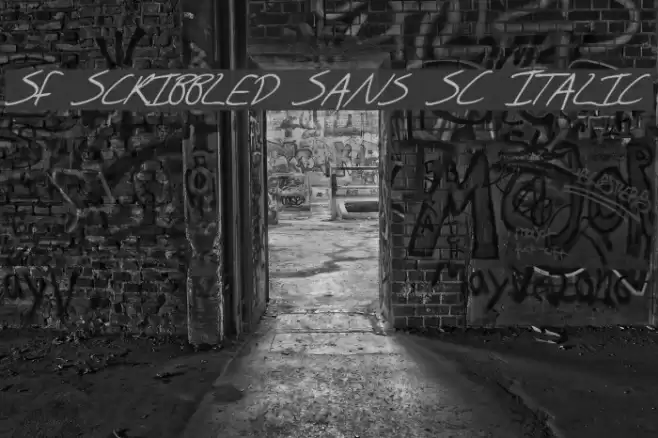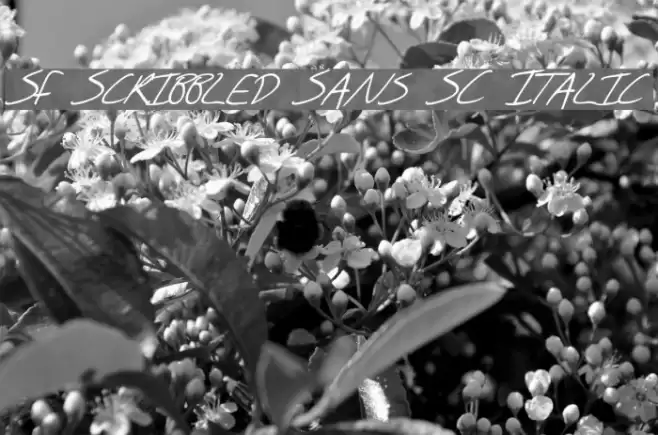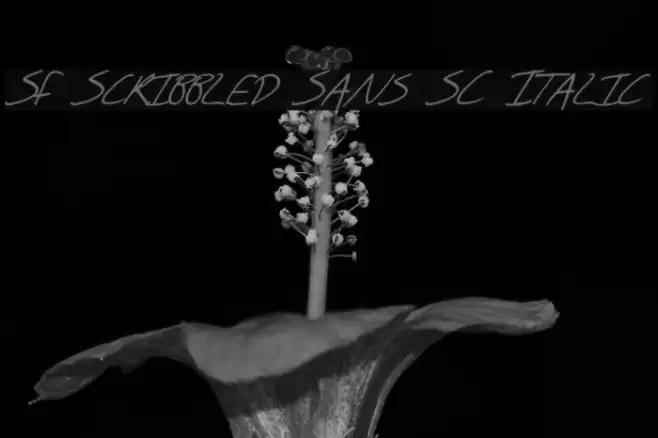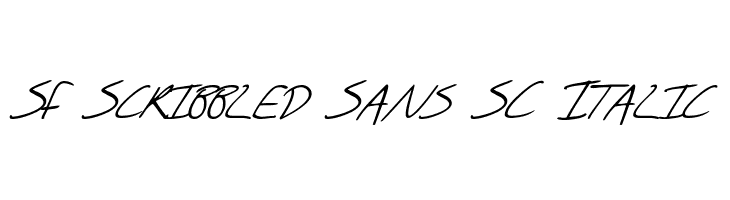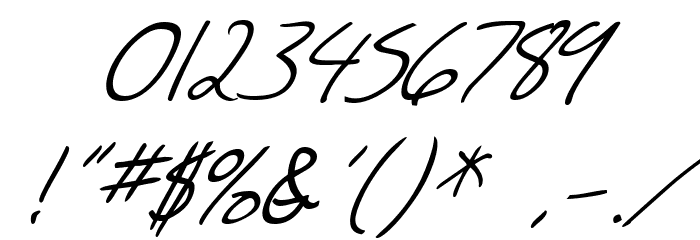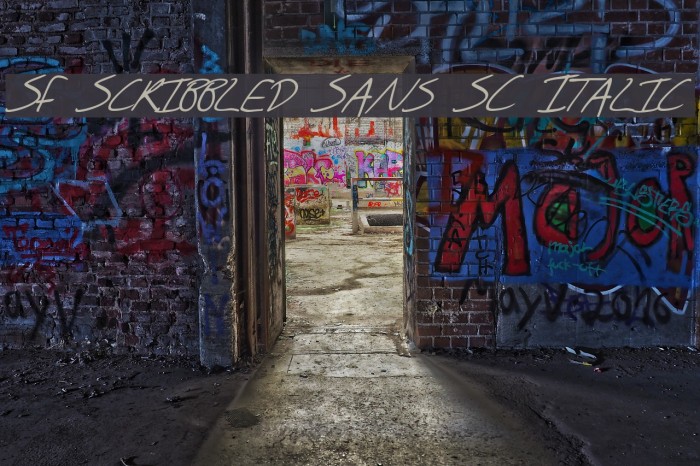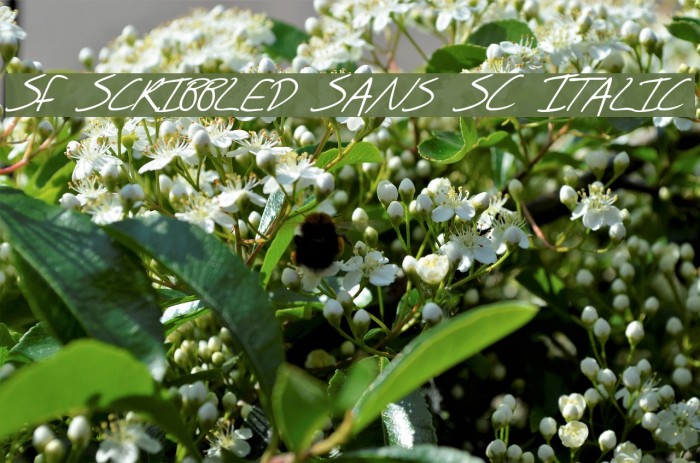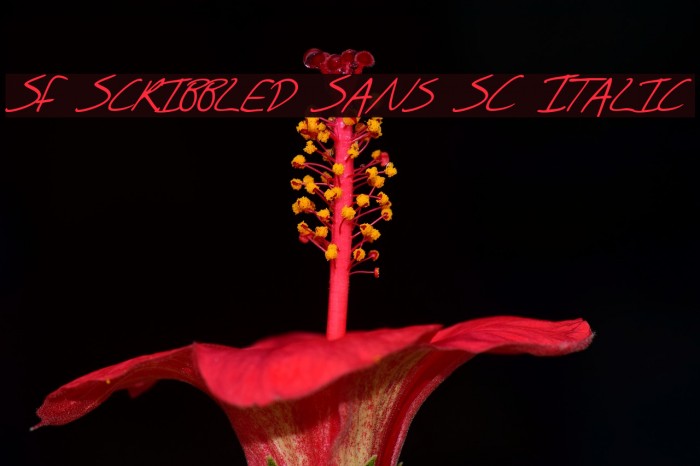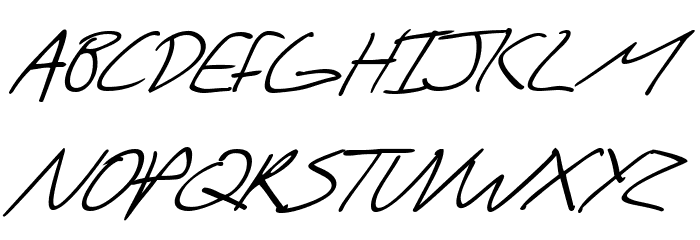
SF Scribbled Sans SC Italic Font
SF Scribbled Sans SC Italic Description
This font features a dynamic and energetic handwritten style, characterized by its fluid and cursive strokes. The letters are slightly slanted, giving it an italic appearance that enhances its casual and informal look. The strokes vary in thickness, adding a sense of movement and spontaneity. The uppercase and lowercase letters maintain a consistent style, with smooth curves and sharp angles that create a lively rhythm. The numerals and special characters are designed to match the overall aesthetic, ensuring a cohesive appearance across all text elements. This font's playful and expressive nature makes it ideal for projects that require a personal touch.
A dynamic handwritten font with fluid, italic strokes and varying thickness from Handwritten fonts.
- Proposed Projects: Ideal for personal invitations, greeting cards, creative posters, and branding materials that seek a casual and lively touch.
- Overall Style: Casual and Expressive
- Use Case: Headlines, Logos, Invitations